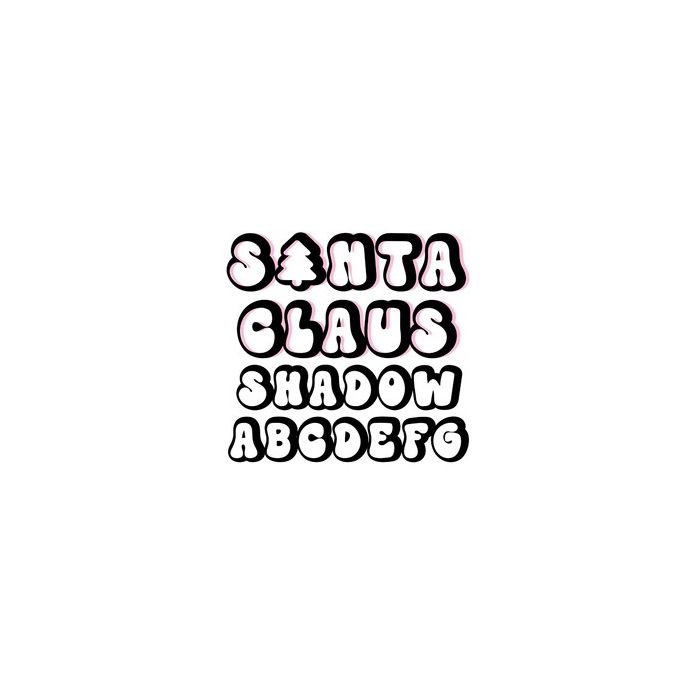
BFC Santa Claus Shadow Christmas Retro Bubble Shadow Font
Santa Claus Shadow is a retro bubble Christmas Font. Find the Christmas tree by using the capital A key.